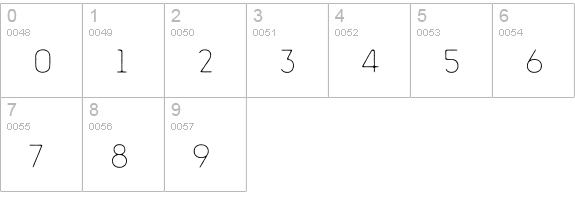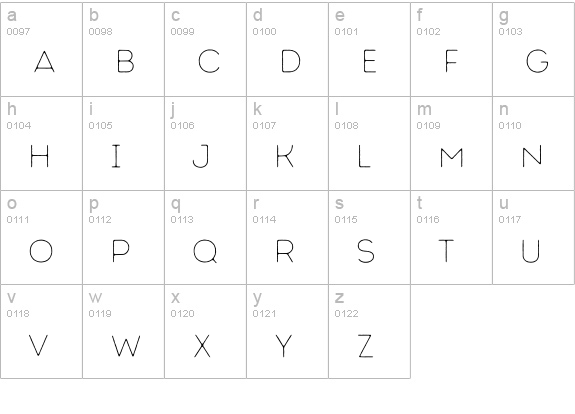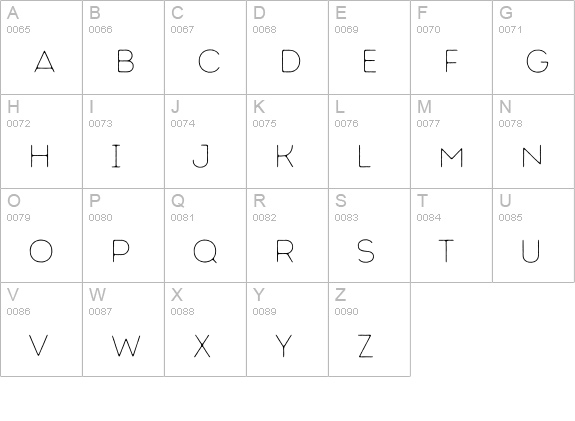
Intro Rust Line is a modern and stylish font that exudes elegance and sophistication. Its clean lines and slender design make it perfect for a variety of design projects, from logos to invitations to branding materials. The font's sleek appearance gives it a timeless quality that will elevate any design it is used in. One of the best things about Intro Rust Line is that it is completely free to download at FontsMarket.com. This means that you can access this beautiful font without having to worry about any additional costs. Whether you are a professional designer or a hobbyist looking to add a touch of class to your projects, Intro Rust Line is a fantastic choice that won't break the bank. With its versatility, elegance, and affordability, Intro Rust Line is sure to become a go-to font for all your design needs. Download it today and start creating stunning designs with ease!